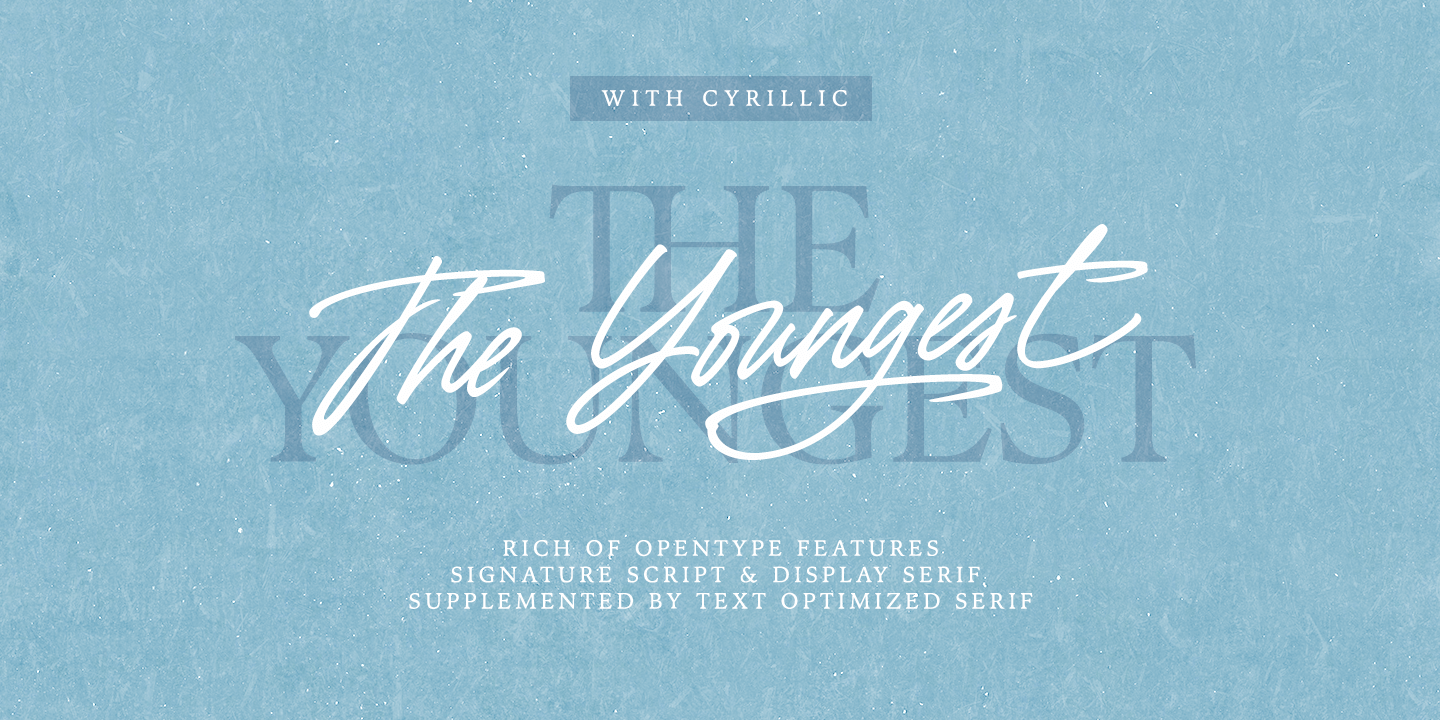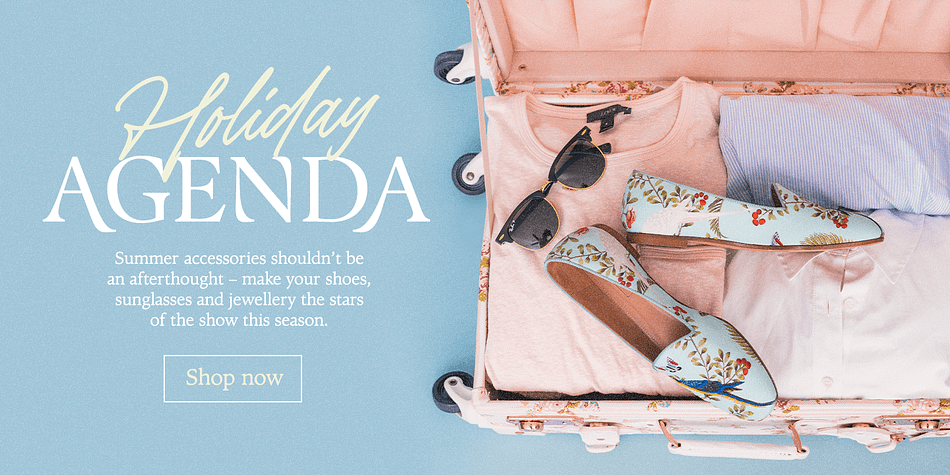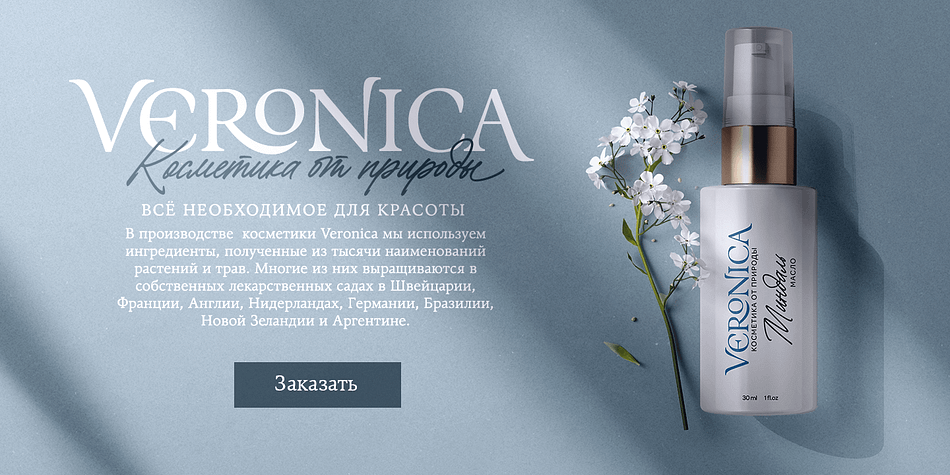
The Youngest
Designed by Elena Genova, The Youngest is a modern calligraphy, script and serif font family. This typeface has three styles and was published by My Creative Land.
The Youngest is a unique modern font family that contains a handwritten signature script and a classic mid-contrast elegant classic serif in two styles - Display and Book.
Both serif and handwritten script benefit from stylistic alternates and ligatures that give your creativity a wide variety of design options. The Book serif is optimized to be comfortably read on screen in small sizes.
The Youngest Script has more than 600 ligatures (100+ unique basic Latin ligatures, their multilingual variations, and 70+ Cyrillic ligatures) to mimic a realistic handwriting.
The serif style has a lot to offer too - more than 300 ligatures including 40+ basic latin ligatures, their multilingual variations and 30+ Cyrillic ones.
All three styles support most of the Latin based languages as well as have basic (Russian) Cyrillic support.